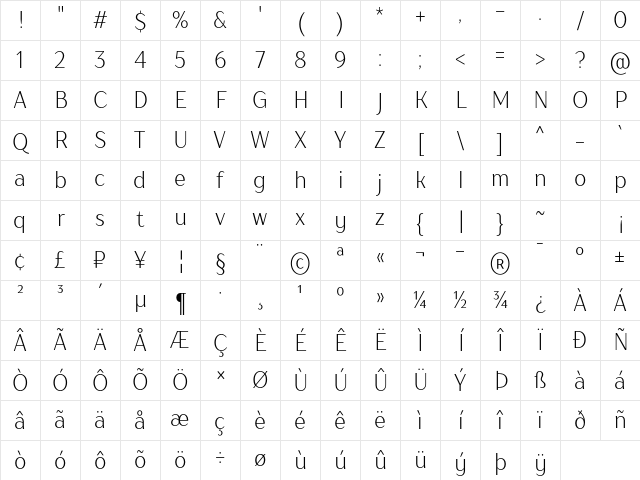
TT Drugs Trl Cnd Light Free Font
TT Drugs Trl Cnd Light
Designer: TypeType
Design Context for TT Drugs Trl Cnd
TT Drugs Trl Cnd is a composed and adaptable typeface that performs quietly and consistently across a wide range of design contexts. Its slender proportions lend an understated elegance to any composition.